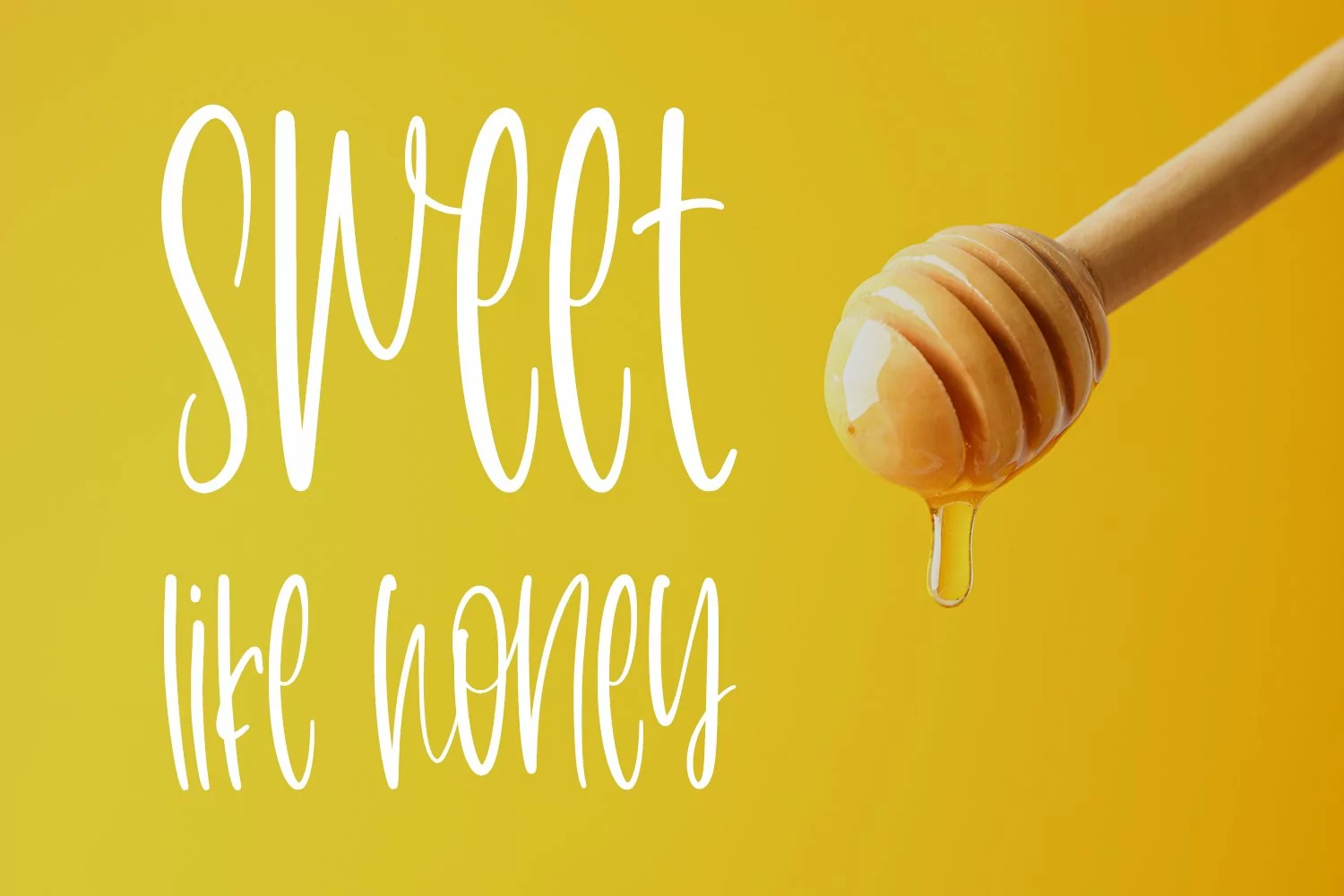
Honeycomb - A Cute Handletter Font that contain lowercase, uppercase, symbol, and also support multi language. There’s a lot ligatures in this font. This Font also comes with ligatures, alternates and many more. this font suitable for fashion, branding, catalog and other design what you want.
Honeycomb